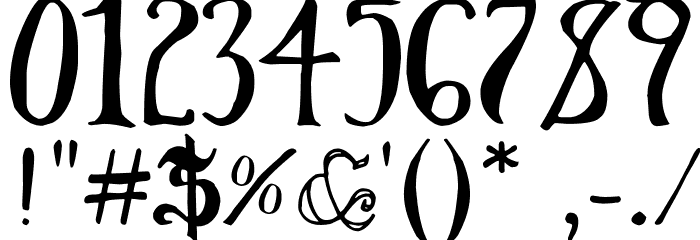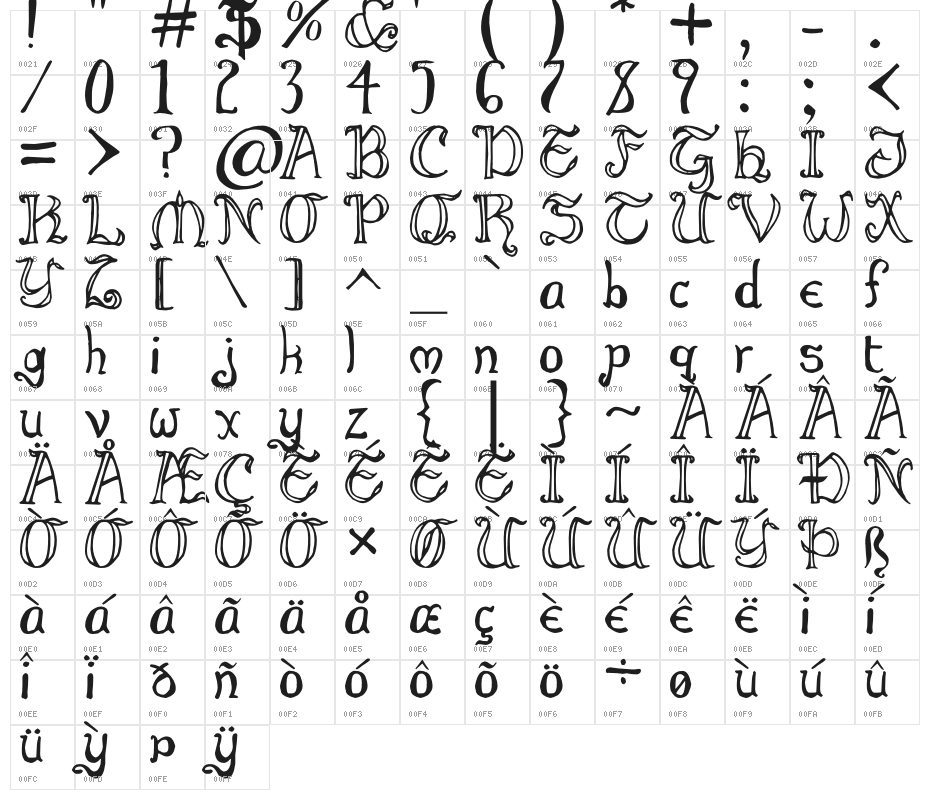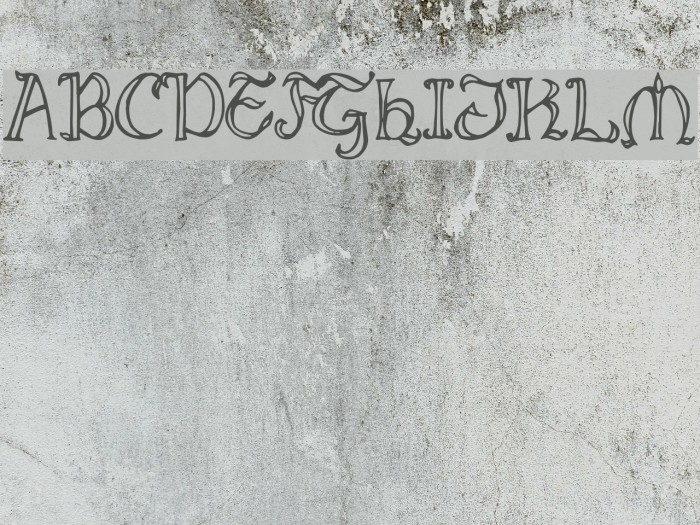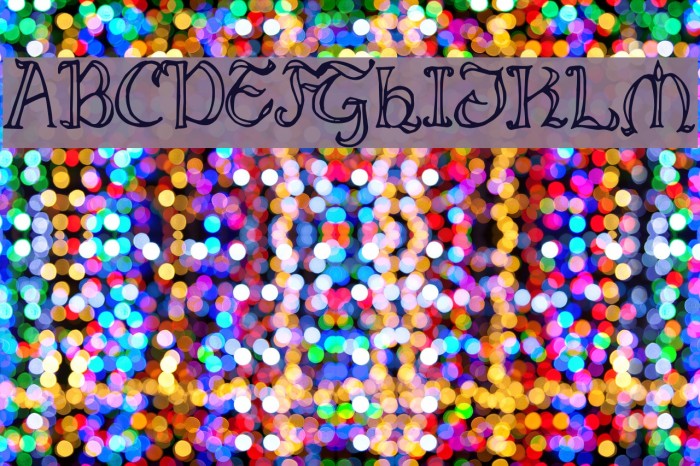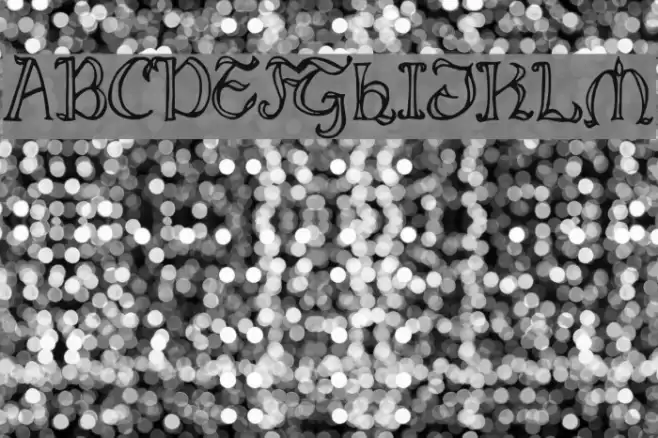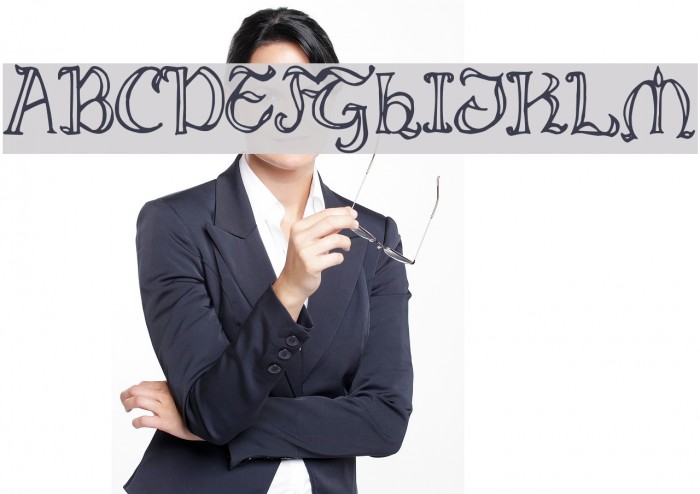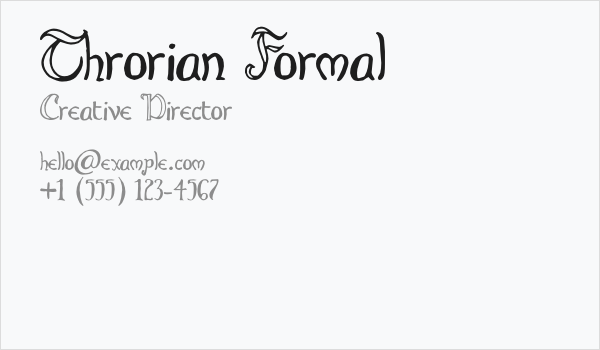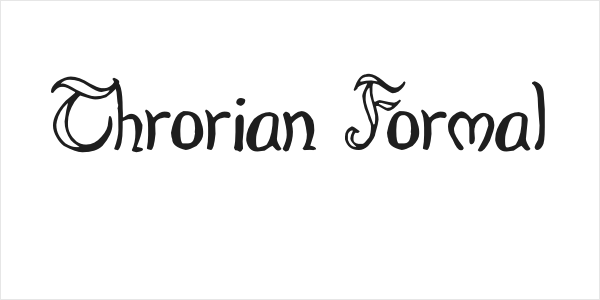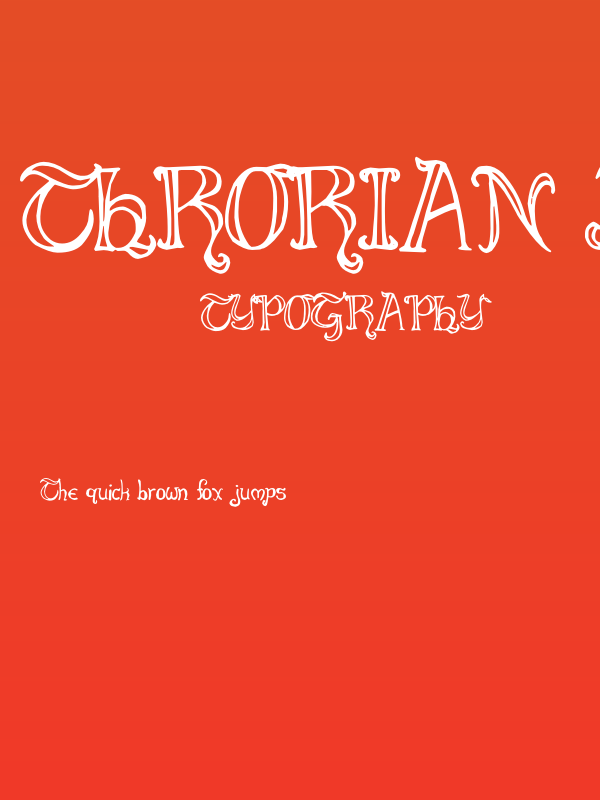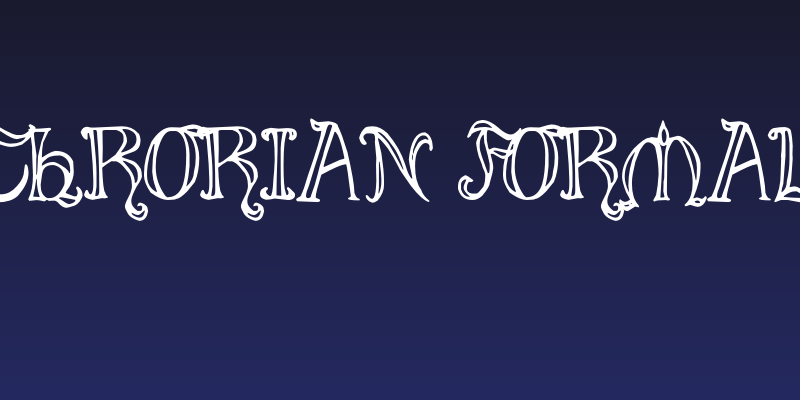
Throrian Formal Font
Throrian Formal Description
This font exhibits a unique and decorative style, characterized by its intricate and flowing letterforms. The uppercase letters feature elaborate swirls and flourishes, giving them a formal and artistic appearance. The lowercase letters maintain a similar decorative quality, with some characters having exaggerated curves and loops. The numerals are distinct and bold, matching the overall ornate theme of the font. Special characters are creatively designed, adding to the font's whimsical and elegant feel. This font is ideal for projects that require a touch of sophistication and creativity.